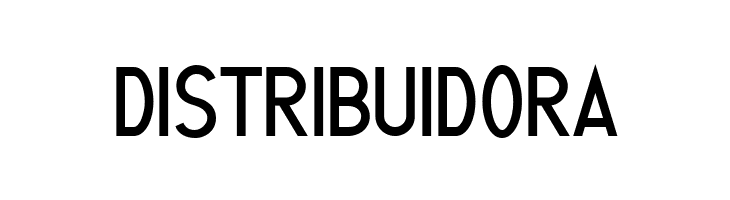
QuacheLightExtraExpandedPERS Font
- Font: QuacheLightExtraExpandedPERS
- No. of Characters:: 442
A bold, geometric sans-serif font with clean lines and modern appeal.